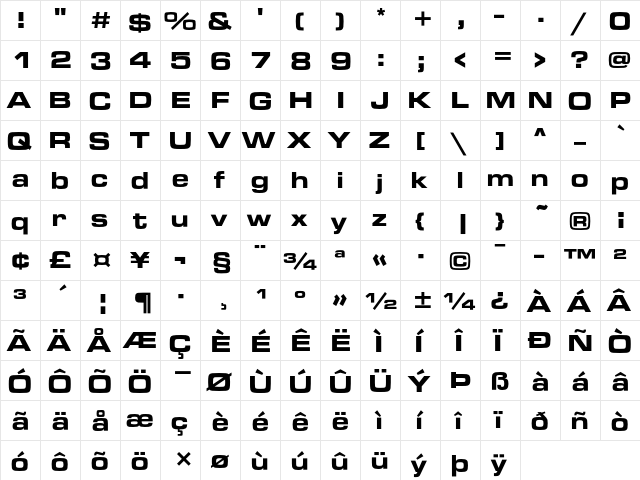
Microgramma D Bold Extended Font Preview
Microgramma D Bold Extended
Design Context for Microgramma D Typeface
Microgramma D is a composed and adaptable typeface that performs quietly and consistently across a wide range of design contexts. The heavy weight commands attention and anchors typographic hierarchies.